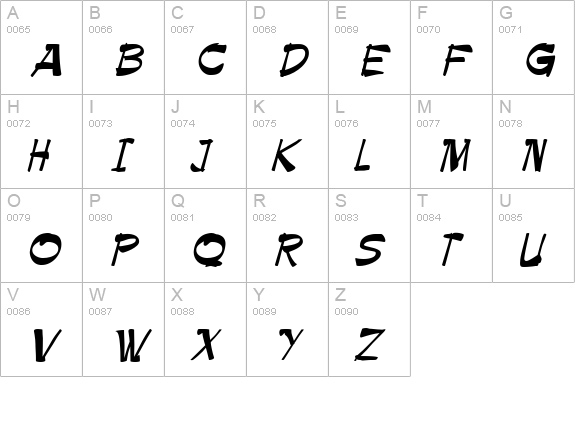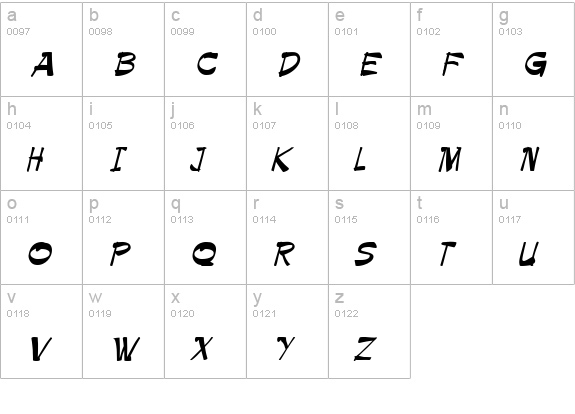
FFX Hard Handwriting font is a unique and stylish typeface that exudes a sense of creativity and flair. With its bold strokes and playful details, this font is perfect for adding a touch of personality to any design project. Whether you're creating posters, invitations, or branding materials, FFX Hard Handwriting will make your text stand out and leave a lasting impression. The best part is that FFX Hard Handwriting font is available for free download at FontsMarket.com. This means you can easily access this eye-catching font and use it in your projects without any cost. So why wait? Add a touch of creativity to your designs with FFX Hard Handwriting font today!